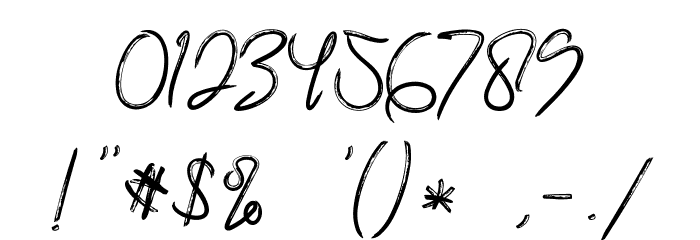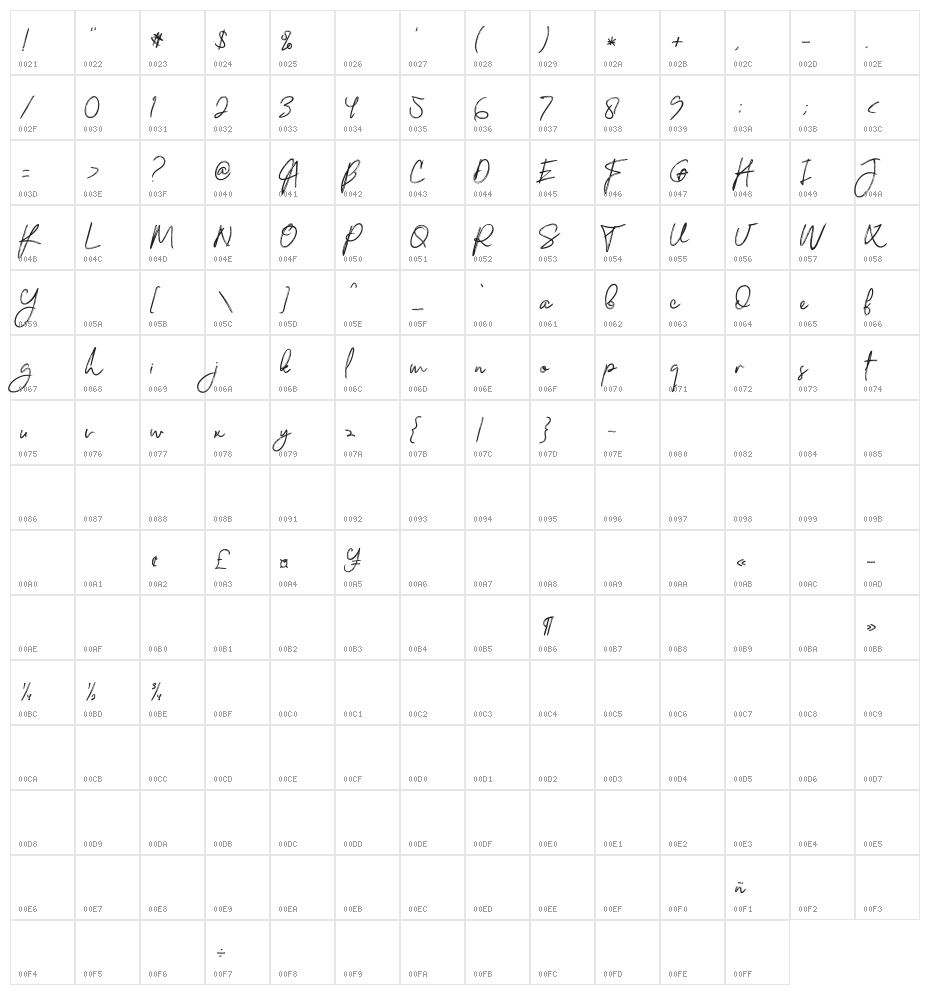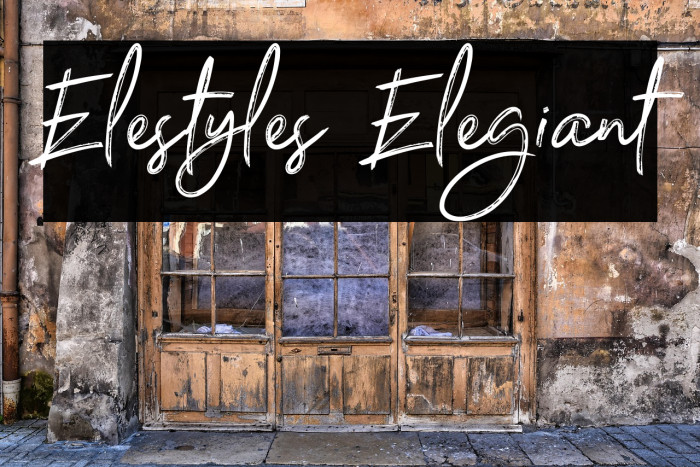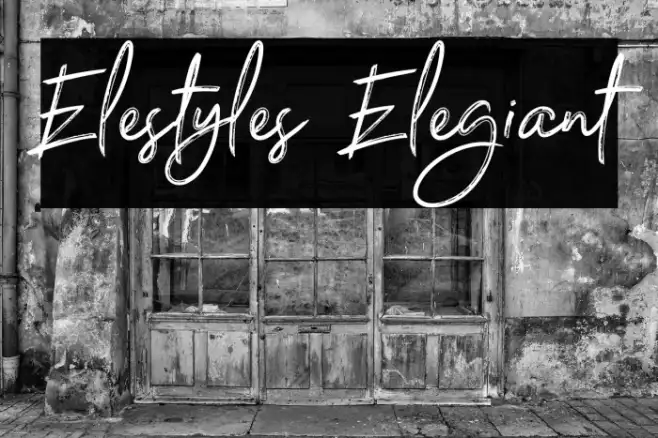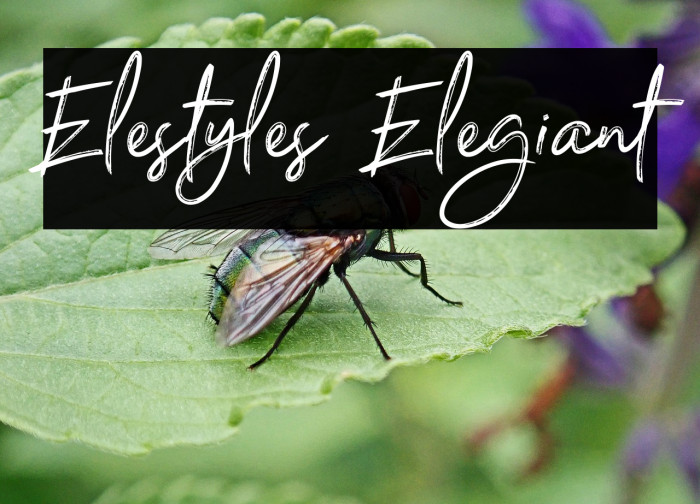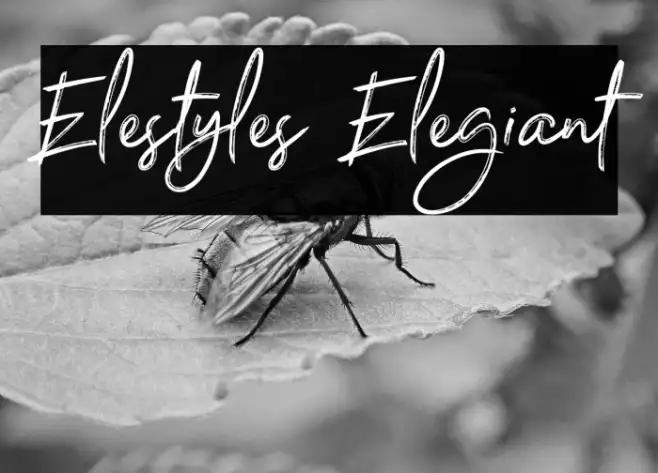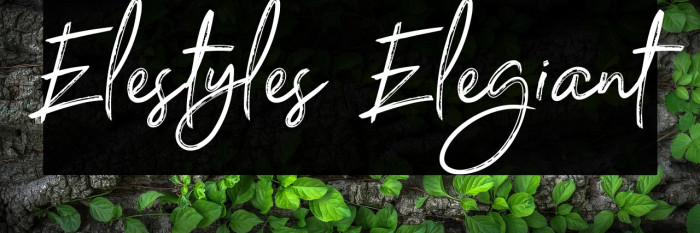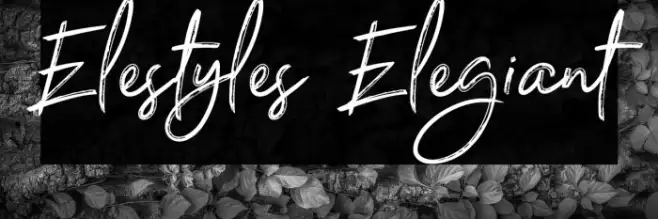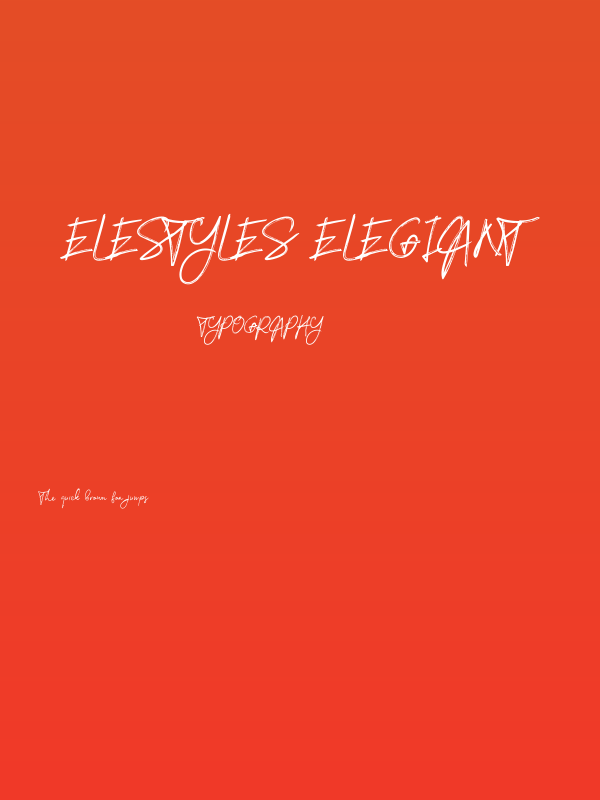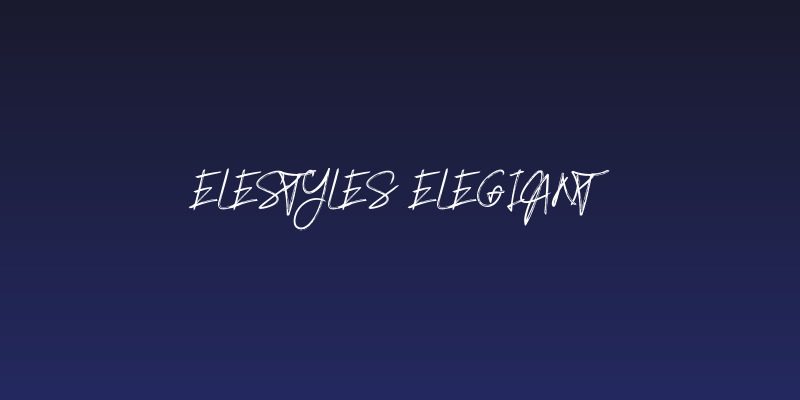
Elestyles Elegiant Font
Elestyles Elegiant Description
This font exhibits a dynamic and expressive handwritten style, characterized by its fluid and cursive letterforms. The strokes are varied in thickness, adding a sense of movement and energy to the text. The uppercase letters are bold and sweeping, while the lowercase letters maintain a consistent flow, enhancing readability. The numerals and special characters are crafted with the same artistic flair, making them visually cohesive with the alphabet. This font's unique style is perfect for projects that require a personal touch or artistic expression.
| Proposed Projects | Ideal for invitations, greeting cards, branding, and artistic projects that require a personal and creative touch. |